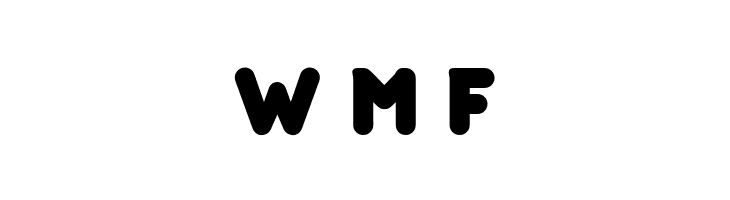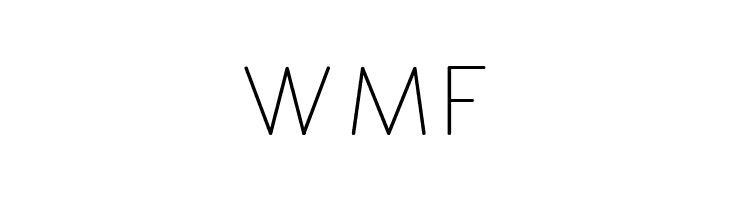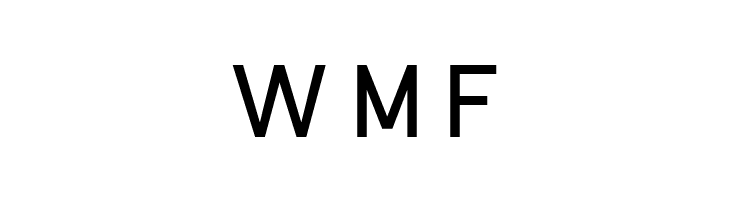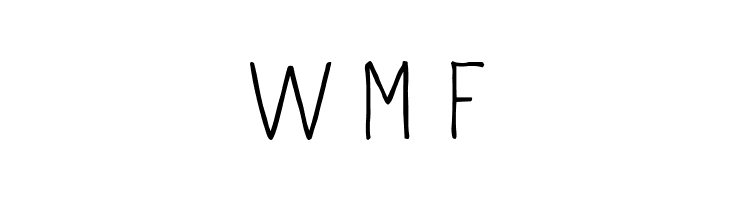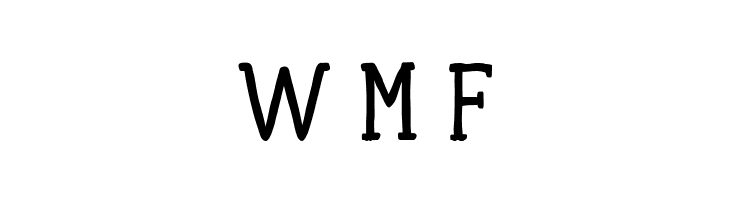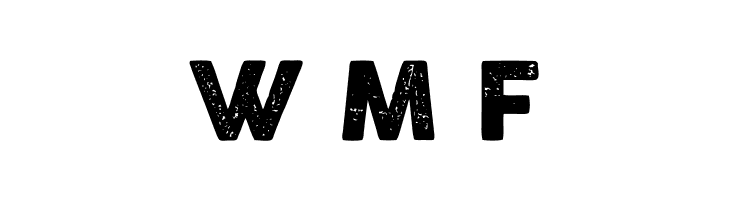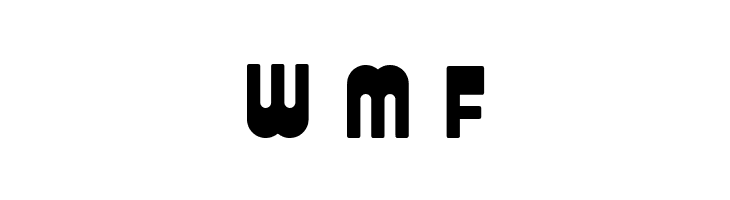
A bold, modern font with a sleek and slightly condensed design.
A modern, geometric sans-serif font with a sleek, condensed design.
A modern, geometric font with tall, narrow characters and clean lines.
A modern serif font with tall, narrow letterforms and high contrast strokes.
A fluid and expressive handwritten cursive font.
A playful, informal handwritten font with dynamic strokes and quirky charm.
A bold, textured font with a hand-drawn, brush-like appearance.
A playful, bold font with rounded, bubbly characters.
A modern, geometric font with rounded edges and balanced spacing.
A bold, eclectic display typeface with modern and vintage influences.
A modern, ultra-light sans-serif font with tall, narrow characters and consistent line weight.
A modern, geometric font with tall, narrow letterforms and a clean aesthetic.
A modern, geometric font with thin strokes and balanced spacing.
A bold, rounded font with a playful and friendly appearance.
A modern, clean sans-serif font with uniform stroke width.
A bold, modern sans-serif font with strong, uniform strokes.
A clean, modern typeface with uniform stroke width and geometric style.
A sleek, condensed, light italic font with a modern and elegant style.
A modern, condensed italic font with uniform strokes and a sleek appearance.
A modern, condensed, and light font with geometric letterforms.
A modern, condensed font with a clean and streamlined appearance.
A creative and eclectic display font with unique textures and motifs in each character.
A bold, distressed font with a vintage letterpress effect.
A bold, blocky font with a playful, urban style.